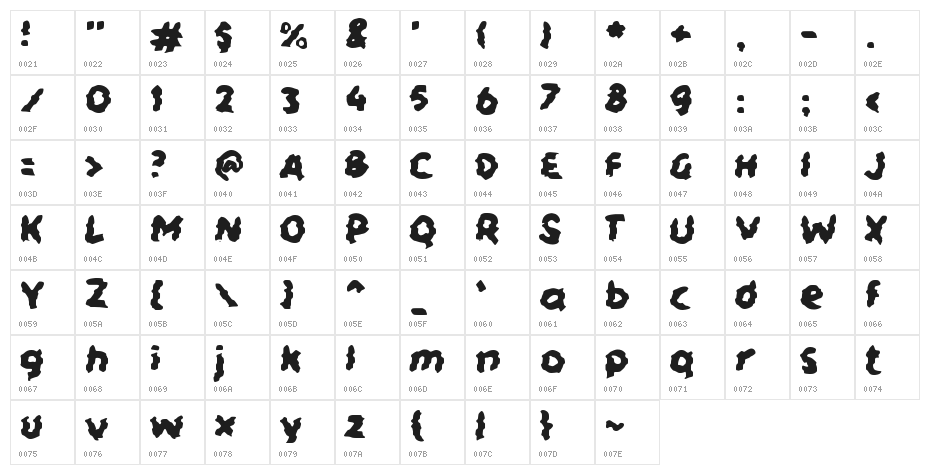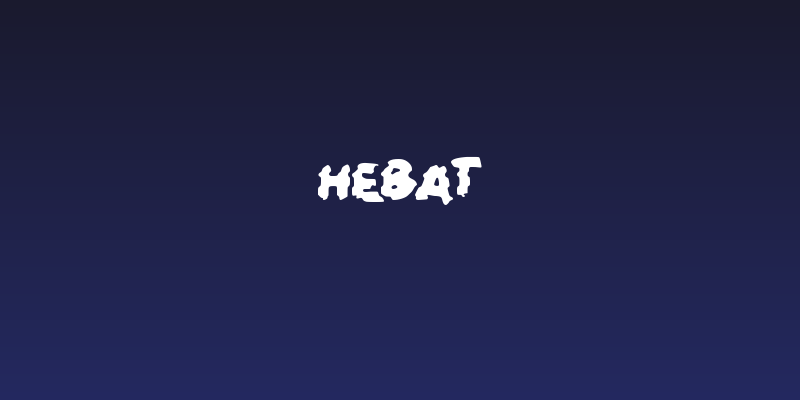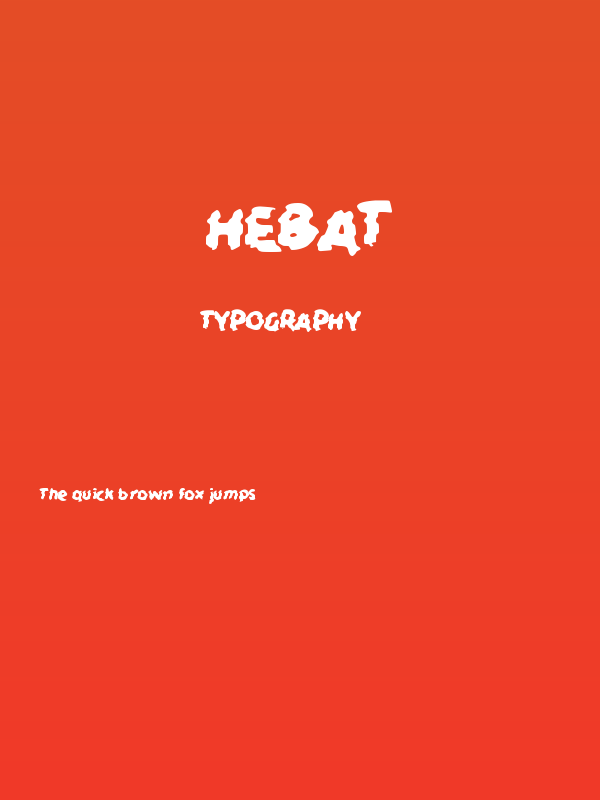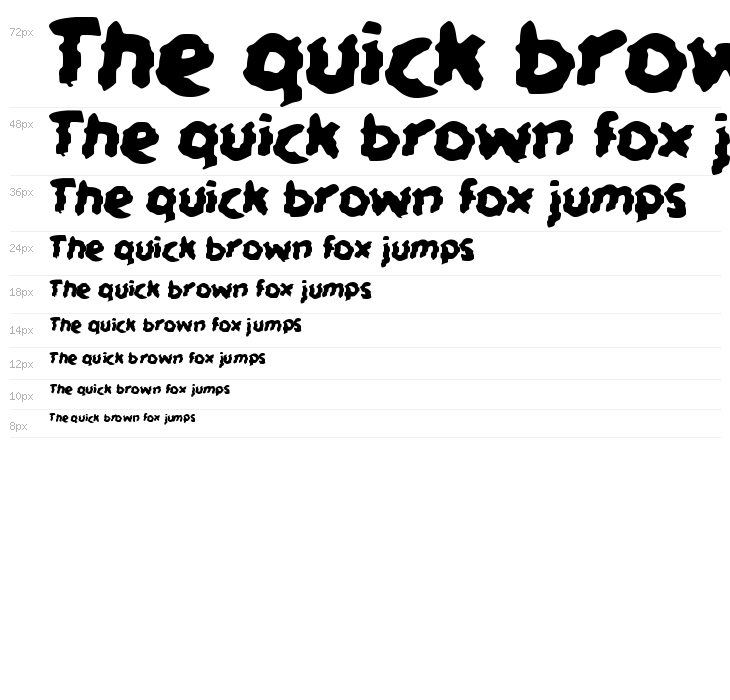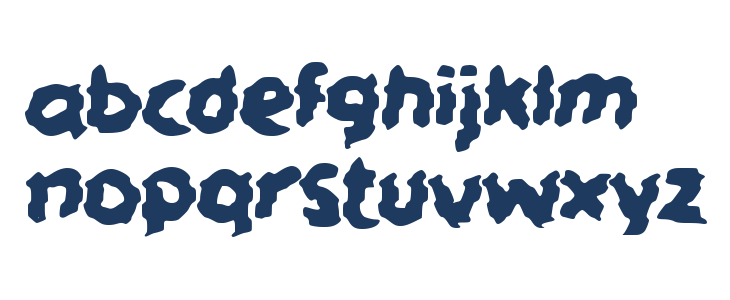
HEBAT Font
HEBAT Description
This font features a bold and playful design with irregular, jagged edges that give it a dynamic and energetic appearance. The characters are thick and substantial, creating a strong visual impact. The style is reminiscent of hand-drawn or graffiti art, with a slightly chaotic yet cohesive look. Each letter and number is unique, contributing to the overall whimsical and artistic feel. The font's distinctiveness makes it suitable for creative and unconventional projects where a bold statement is desired.
| Proposed Projects | Ideal for posters, album covers, street art designs, and any project requiring a bold, artistic touch. |